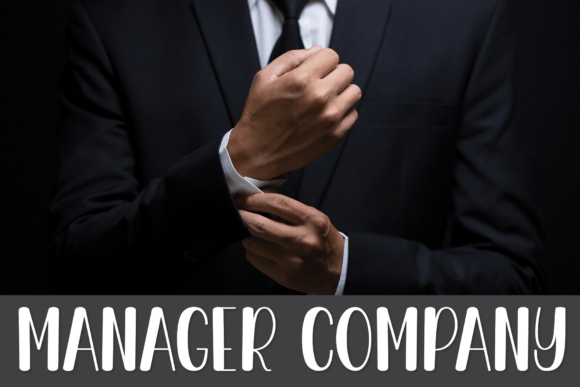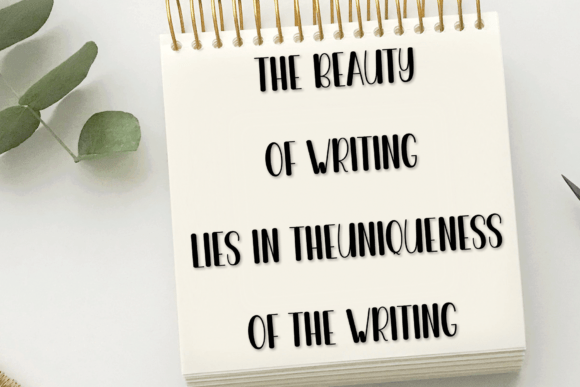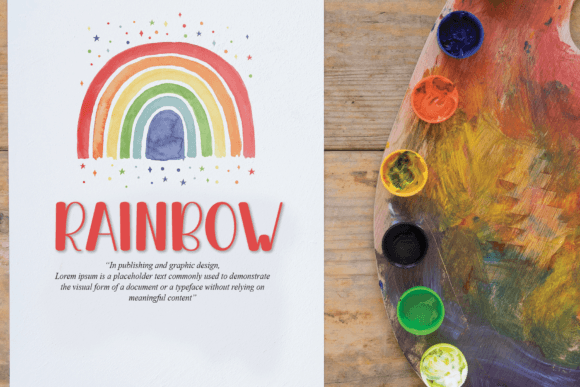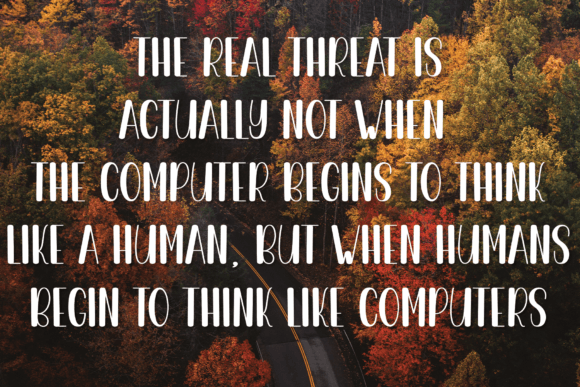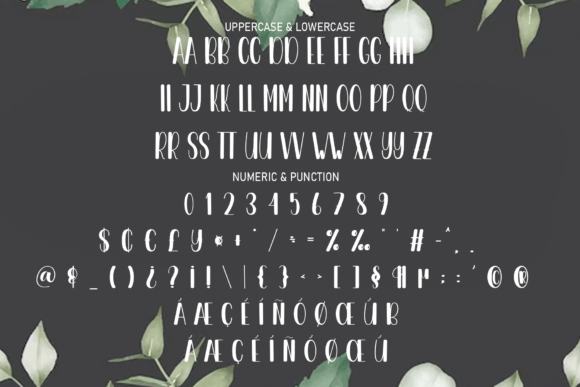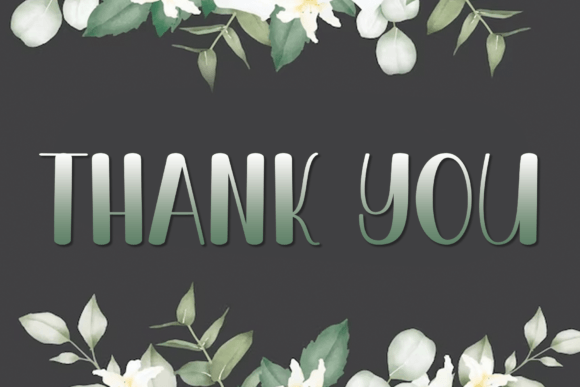
Introducing Clarisa Font: The Fun and Casual Handwritten Typeface
Are you tired of using the same old fonts in your design projects? Look no further than Clarisa Font, a fun and casual handwritten typeface that’s sure to add a unique spark to any design. With its characters that dance along the baseline, Clarisa Font is the perfect choice for designers and crafters looking to add a touch of personality to their work.
What is Clarisa Font?
Clarisa Font is a handwritten typeface that’s designed to bring a sense of playfulness and whimsy to your design projects. Its casual, carefree vibe makes it perfect for use in a variety of applications, from social media graphics and blog posts to invitations and crafts. With its unique and eye-catching style, Clarisa Font is sure to help your designs stand out from the crowd.
Key Features of Clarisa Font
So what sets Clarisa Font apart from other typefaces? Here are just a few of its key features:
- Handwritten style: Clarisa Font is a true handwritten typeface, with each character carefully crafted to give it a personal and unique feel.
- Characters that dance along the baseline: One of the standout features of Clarisa Font is the way its characters seem to dance along the baseline. This gives it a sense of movement and energy that’s hard to resist.
- Fun and casual vibe: Clarisa Font is the perfect choice for designers and crafters who want to add a touch of personality to their work. Its fun and casual vibe makes it perfect for use in a variety of applications.
How to Use Clarisa Font in Your Design Projects
So how can you use Clarisa Font in your design projects? Here are a few ideas to get you started:
- Social media graphics: Add a touch of personality to your social media graphics with Clarisa Font. Its fun and casual vibe makes it perfect for use in Facebook posts, Instagram stories, and more.
- Blog posts: Use Clarisa Font to add a personal touch to your blog posts. Its handwritten style makes it perfect for use in headings, subheadings, and body copy.
- Invitations: Clarisa Font is the perfect choice for invitations, whether you’re planning a party, wedding, or other special event. Its unique and eye-catching style is sure to impress your guests.
- Crafts: Clarisa Font is also perfect for use in crafts, such as scrapbooking, card making, and more. Its fun and casual vibe makes it a great choice for adding a personal touch to your handmade projects.
Why Choose Clarisa Font?
So why should you choose Clarisa Font for your design projects? Here are just a few reasons:
- Unique and eye-catching style: Clarisa Font has a unique and eye-catching style that’s sure to help your designs stand out from the crowd.
- Easy to read: Despite its handwritten style, Clarisa Font is easy to read and understand. This makes it perfect for use in a variety of applications, from body copy to headings.
- Versatile: Clarisa Font is a versatile typeface that can be used in a variety of applications. Whether you’re designing social media graphics, blog posts, or invitations, Clarisa Font is the perfect choice.
In conclusion, Clarisa Font is a fun and casual handwritten typeface that’s perfect for designers and crafters looking to add a unique spark to their design projects. With its characters that dance along the baseline and its fun and casual vibe, Clarisa Font is sure to help your designs stand out from the crowd. So why not give it a try today and see the difference it can make in your work?